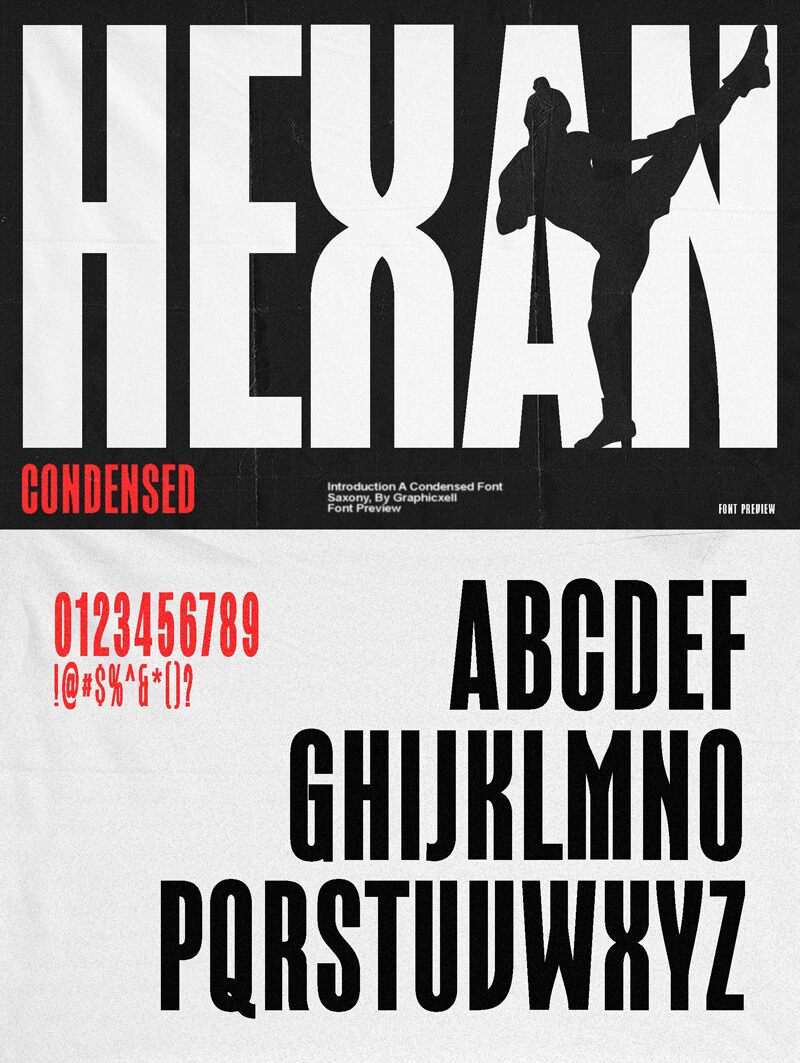
Hexan
Hexan font by Graphicxell is a free condensed sans serif display font. Built like a steel beam, it stacks power into tight spaces—tall silhouettes, razor-straight sides, and angular cuts that punch through clutter. The narrow rhythm and compact counters create a dense, high-impact texture that reads loud even at modest sizes, making headlines feel immediate and unapologetic.
Using Hexan, you’ll get commanding results for posters, techno or esports branding, event flyers, packaging, signage, and editorial slugs. This free font thrives on big type and short words; add a touch of letterspacing to let the forms breathe. Pair with a light geometric sans for body copy to balance its muscular stance.